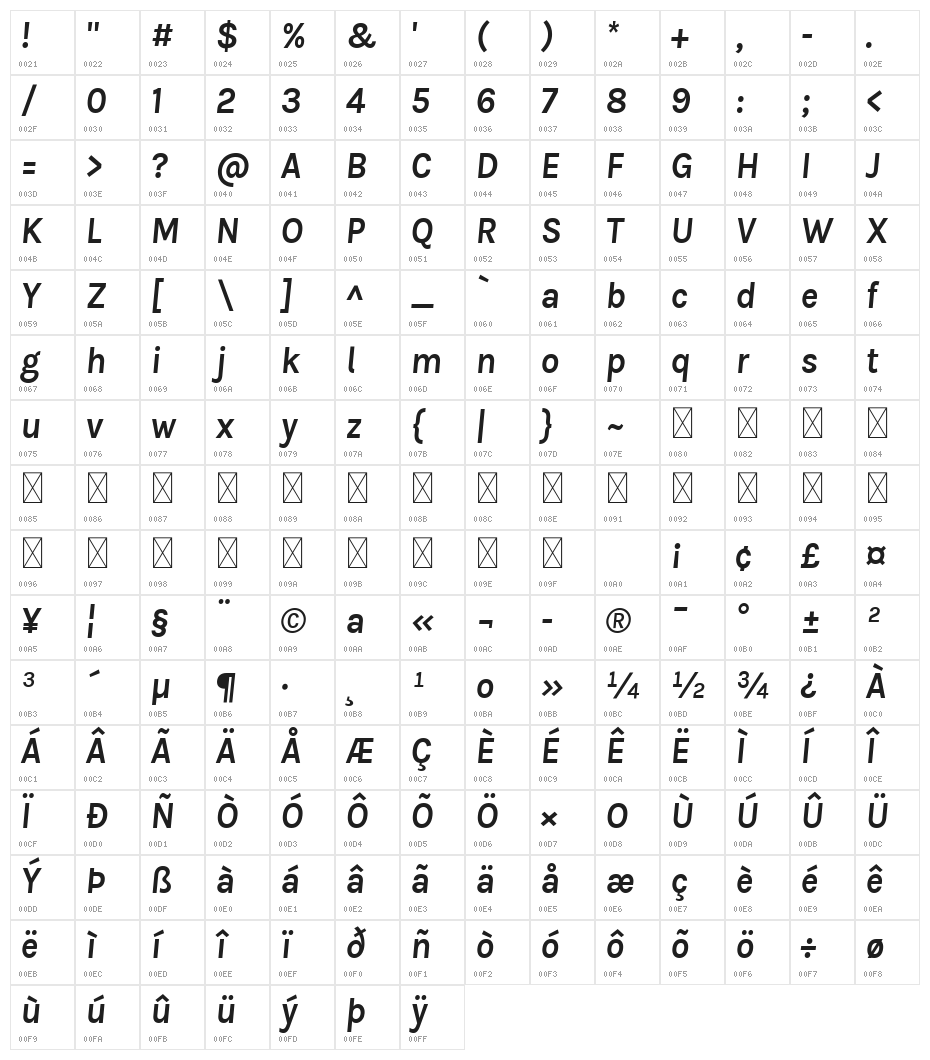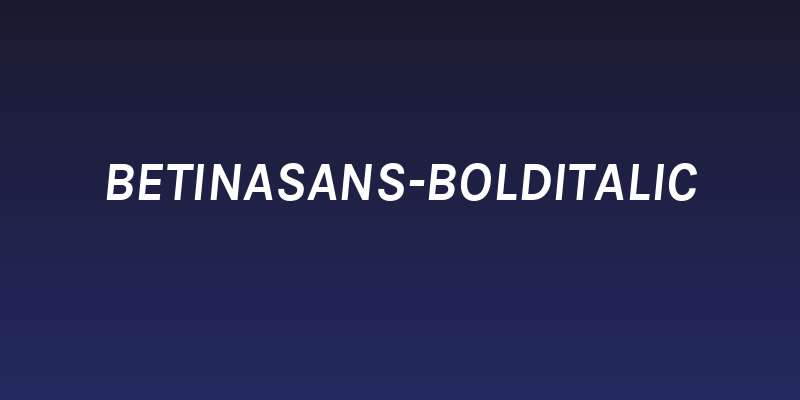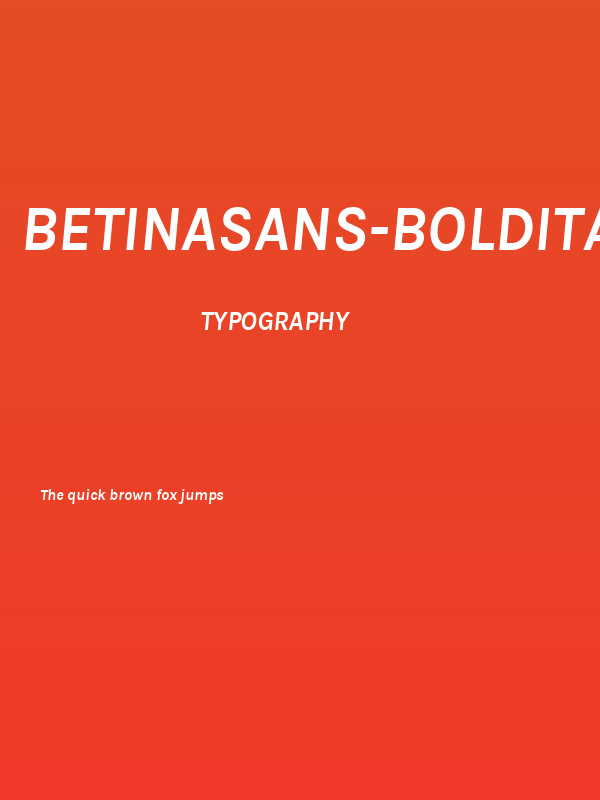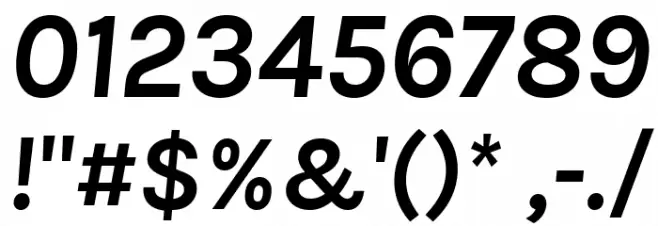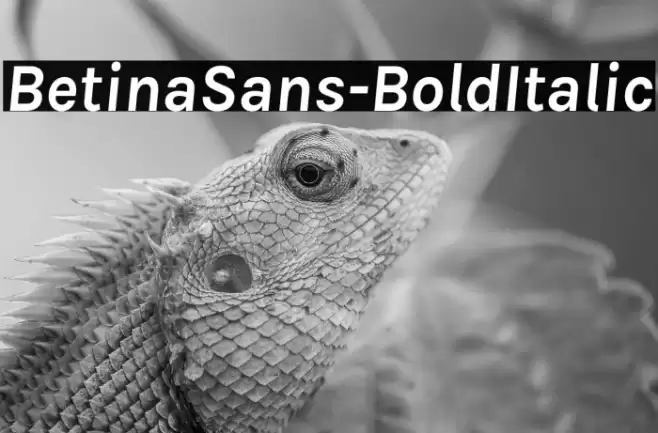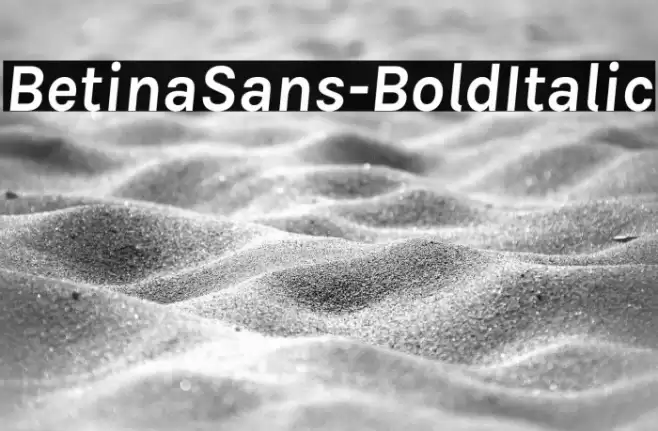
BetinaSans-BoldItalic Font
BetinaSans-BoldItalic Description
This font exhibits a clean and modern sans-serif style with a bold and italicized appearance. The characters are well-defined with smooth curves and a slight slant, giving it a dynamic and contemporary feel. The uppercase and lowercase letters maintain a consistent weight, ensuring readability across various sizes. The numerals are clear and balanced, complementing the overall design. Special characters are distinct and integrate seamlessly with the rest of the typeface, making it versatile for different applications.
| Use Case | Headlines, Logos, Branding |
| Proposed Projects | Ideal for branding projects, advertising, headlines, and digital content where a modern and bold statement is needed. |